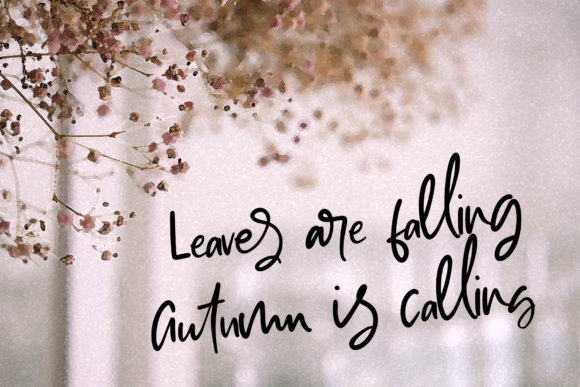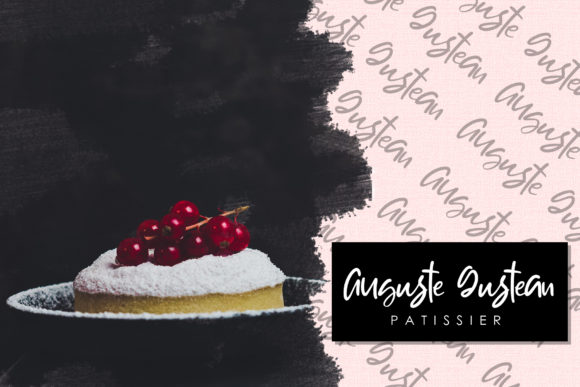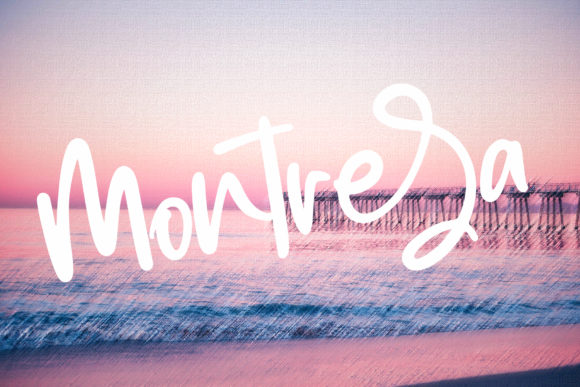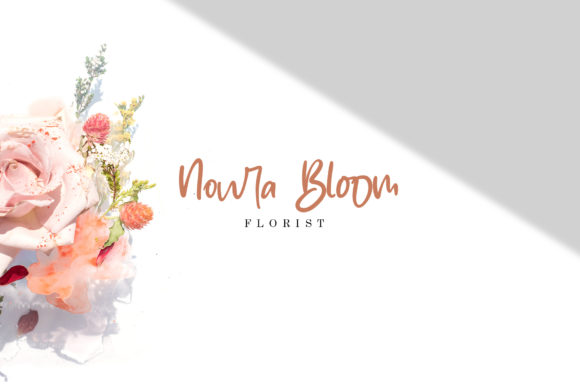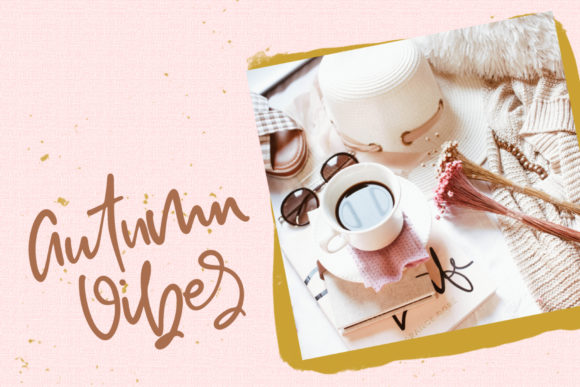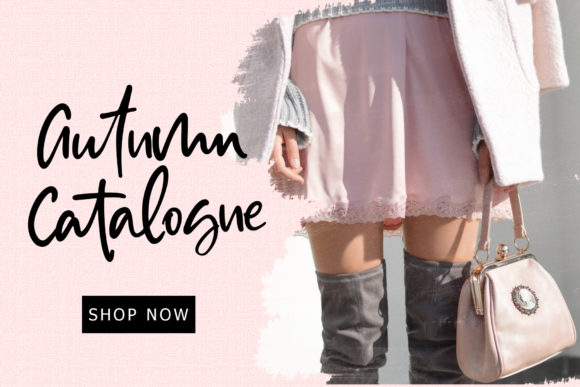
Brightside Font: A Delicate and Expressive Script with a Modern Twist
Are you looking for a font that can add a touch of elegance and sophistication to your designs? Look no further than Brightside Font, a beautiful script font that is sure to inspire your creativity. With its delicate, expressive, and charming design, Brightside is the perfect choice for designers and crafters who want to add a modern twist to their work.
What is Brightside Font?
Brightside Font is a modern script font that is designed to be both elegant and approachable. Its delicate lines and curves give it a charming feel that is perfect for a wide range of design projects, from wedding invitations and branding materials to social media graphics and more. With its clean and simple design, Brightside is a versatile font that can be used in a variety of contexts.
Key Features of Brightside Font
So what makes Brightside Font so special? Here are just a few of its key features:
- Delicate and expressive design: Brightside has a beautiful, hand-drawn design that is both delicate and expressive. Its lines and curves are smooth and flowing, giving it a charming and elegant feel.
- Modern lightness: Unlike some script fonts that can feel heavy or overpowering, Brightside has a light and airy feel that is perfect for modern designs.
- Versatile and adaptable: Brightside is a versatile font that can be used in a wide range of design projects, from formal and elegant to casual and playful.
- Easy to read: Despite its delicate design, Brightside is surprisingly easy to read, making it perfect for body text as well as headlines.
How to Use Brightside Font in Your Designs
So how can you use Brightside Font in your designs? Here are a few ideas to get you started:
- Wedding invitations and stationery: Brightside is a perfect choice for wedding invitations, save-the-dates, and other stationery. Its elegant design and delicate feel make it a great fit for formal events.
- Branding and packaging: Brightside can also be used for branding and packaging design, particularly for businesses that want to convey a sense of elegance and sophistication.
- Social media graphics: Brightside can add a touch of elegance and sophistication to your social media graphics, whether you’re creating posts for Instagram, Facebook, or Twitter.
- Blog and website design: If you’re designing a blog or website, Brightside can be a great choice for headings and titles. Its modern lightness and delicate design make it a great fit for online content.
Tips for Getting the Most Out of Brightside Font
Here are a few tips for getting the most out of Brightside Font:
- Experiment with different colors: Brightside looks great in a variety of colors, so don’t be afraid to experiment and find the perfect hue for your design.
- Pair it with other fonts: Brightside can be paired with a variety of other fonts to create a unique and interesting design. Try pairing it with a bold sans-serif font for a striking contrast.
- Use it for headlines and titles: Brightside is perfect for headlines and titles, where its elegant design and delicate feel can really shine.
In conclusion, Brightside Font is a beautiful and versatile script font that is sure to inspire your creativity. With its delicate, expressive, and charming design, Brightside is the perfect choice for designers and crafters who want to add a modern twist to their work. Whether you’re creating wedding invitations, branding materials, social media graphics, or blog and website content, Brightside is a great choice. So why not give it a try and see how it can elevate your designs?